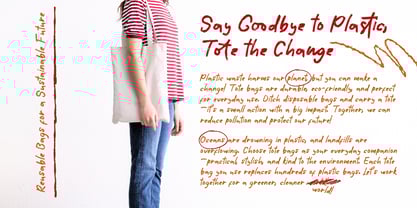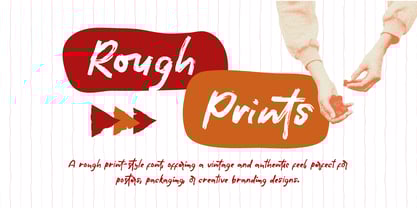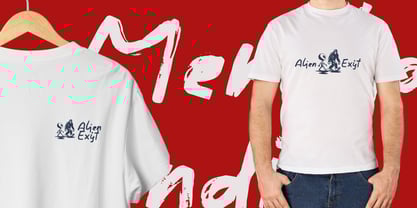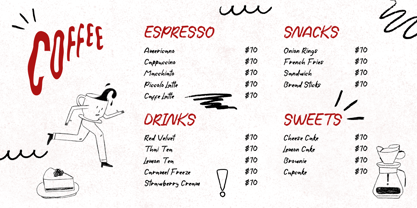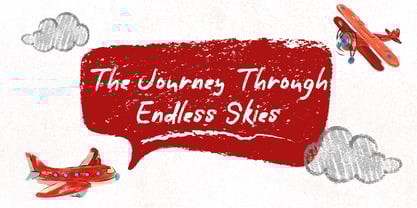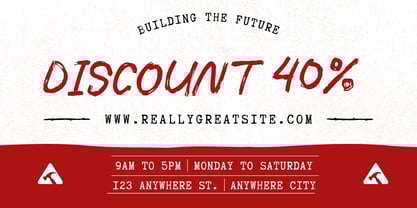
Bt Rough Prints
by Beary
The Bt Rough Prints Font Family was designed by Dian Haniffan Hadi and published by Beary. Bt Rough Prints contains 1 styles. More about this family
BT Rough Prints is a bold handwritten font with raw, natural strokes that exude authenticity and character. Designed with a textured, imperfect style, this font adds a rugged charm and a handcrafted touch to your projects. Perfect for designs that need a unique, edgy aesthetic with a creative flair.
Designers: Dian Haniffan Hadi
Foundry: Beary